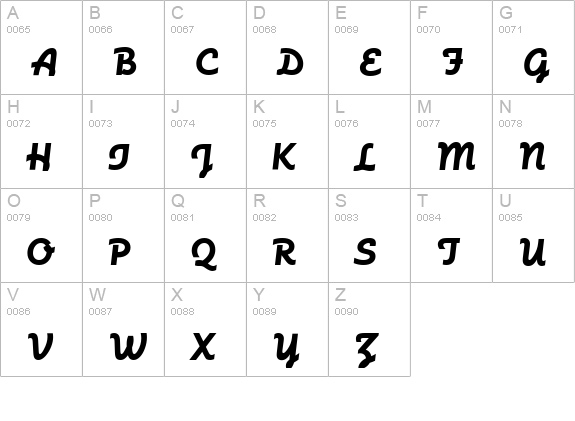
Function-Script-Regular is the standard, neutral variant in the Function typeface family \xE2\x80\x94 well suited to general body text, paragraphs, and standard typographic work.
Function-Script-Regular font is a modern and stylish typeface designed for adding a touch of elegance to your projects. With its clean lines and smooth curves, this font is perfect for creating beautiful designs such as invitations, logos, and branding materials. The versatility of Function-Script-Regular font allows it to be used in various design projects, making it a must-have for designers and creatives. What makes Function-Script-Regular font even more appealing is that it is available for free download at FontsMarket.com. This means you can easily access this high-quality font without any cost, making it a valuable addition to your font collection. Don't miss out on the opportunity to enhance your designs with the sophisticated and modern look of Function-Script-Regular font. Download it today and elevate your design projects to the next level.